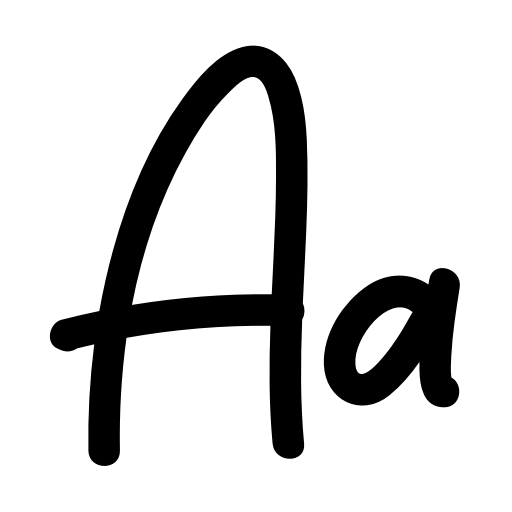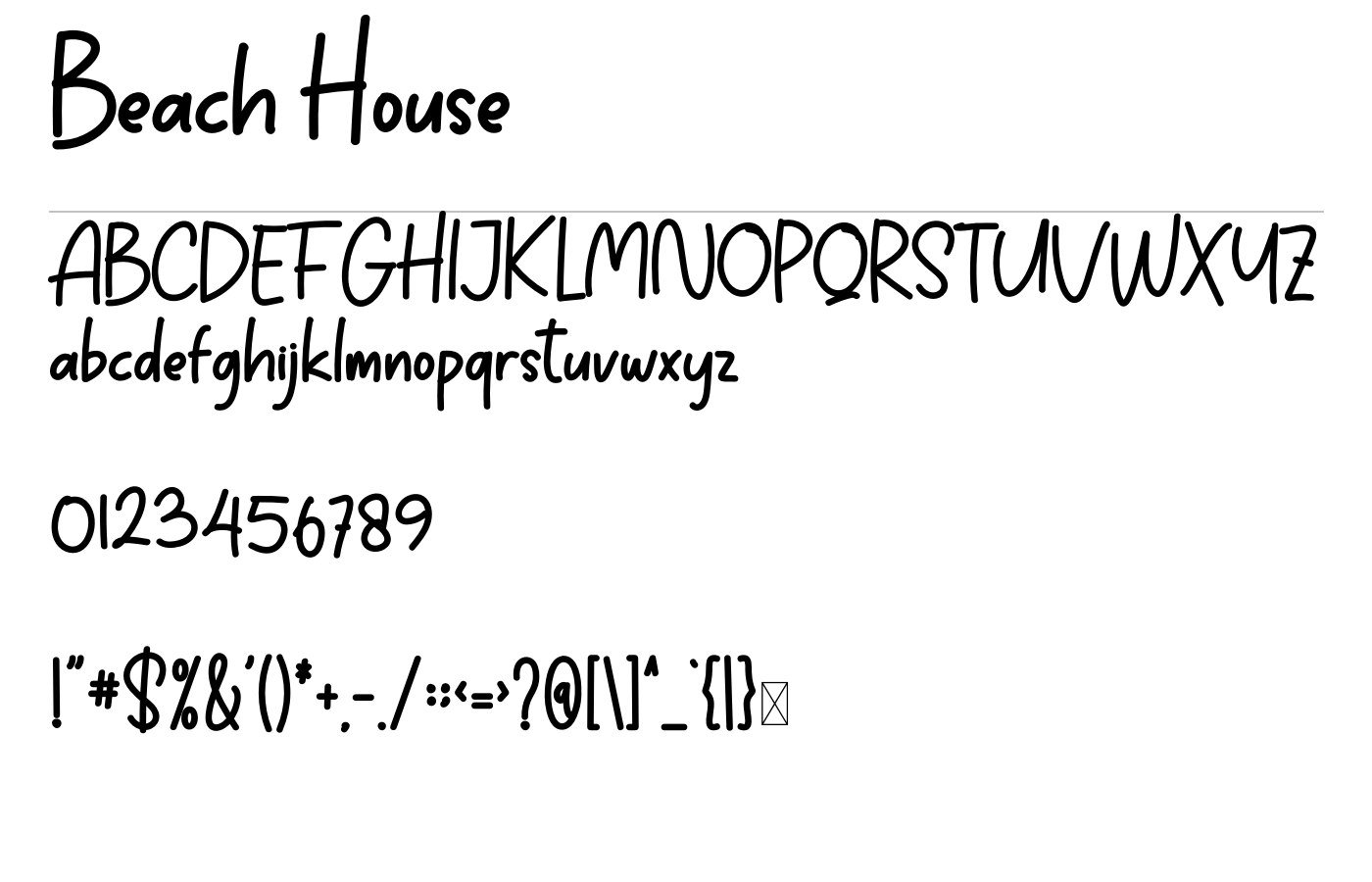
Beach House is a casual and playful handwritten sans serif font featuring tall, narrow letterforms with a friendly, informal vibe. Its smooth, consistent stroke weight and slightly irregular shapes make it perfect for projects aiming for a personal, approachable feel, such as greeting cards, children's books, or lifestyle branding. This font works well for headlines and short text where a relaxed, cheerful tone is desired.
Beach House Font
About Beach House Font